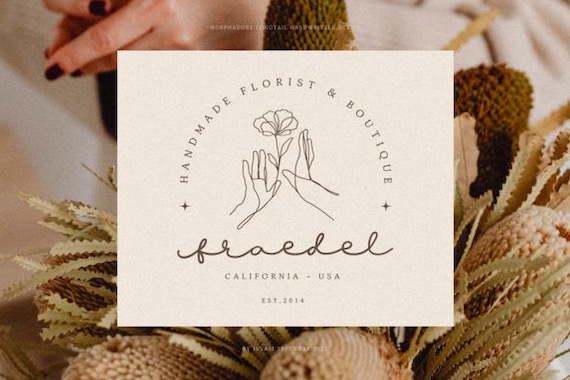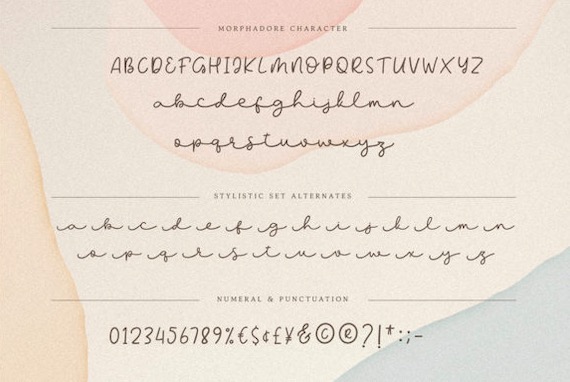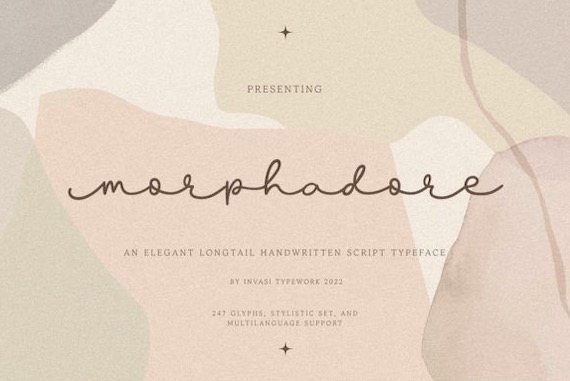
Morphadore is a great modern handwritten font that was created and shared by Invasistudio. It will bring a luxury and classy feel by offering a longtail monoline handwritten style for any of your designs. With Morphadore you can create gorgeous logos, greeting cards, illustrations, quotes, charming branding, book covers, packaging, and much more. This font is PUA encoded which means you can access all of the glyphs and swashes with ease.
Morphadore Handwritten Script Font